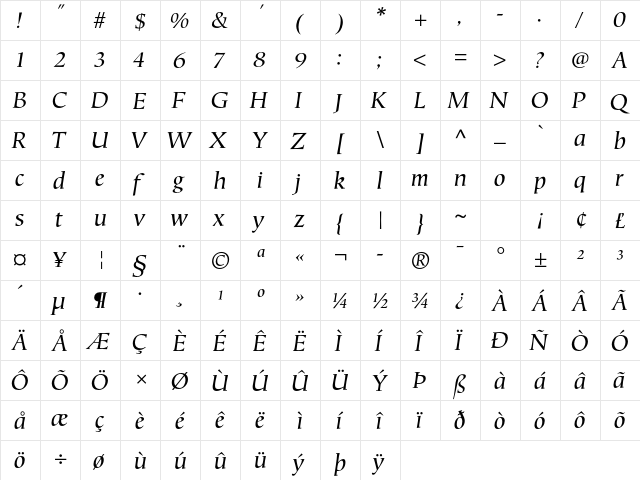
Mariposa Std Book Italic Font Preview
Mariposa Std Book Italic
Mariposa Std Book Italic Font Details
| Style | Book Italic |
| Foundry | International Typeface Corporation |
| Designer | Philip Bouwsma |
Design Context for Mariposa Std Typeface
Mariposa Std is a composed and adaptable typeface that performs quietly and consistently across a wide range of design contexts. The slanted form adds forward momentum and visual energy.